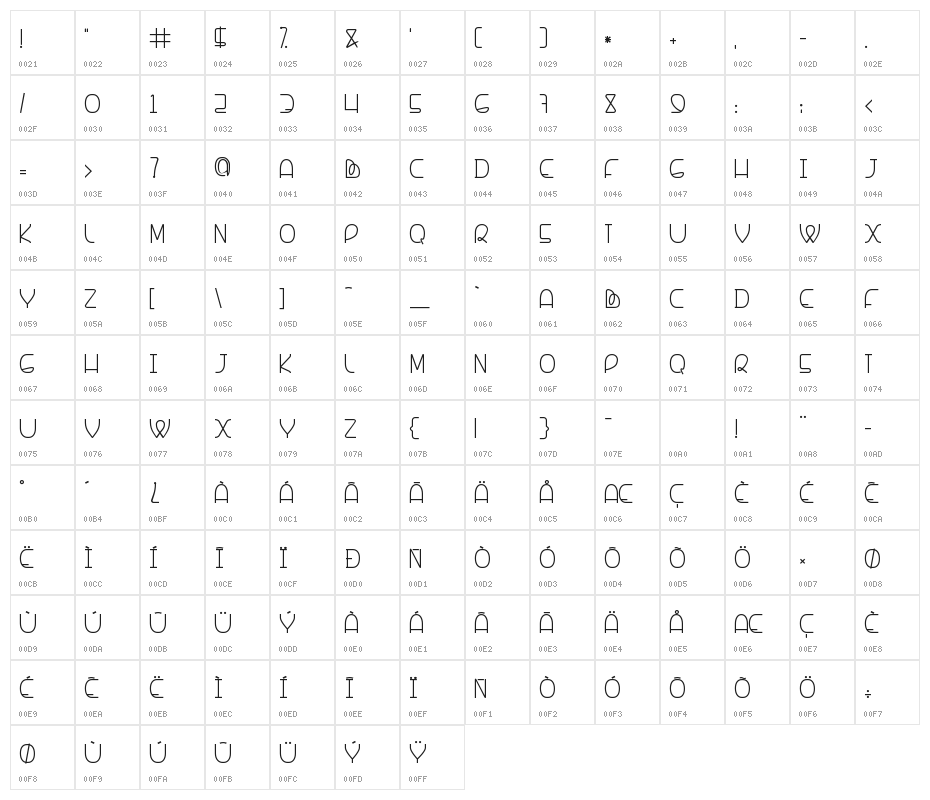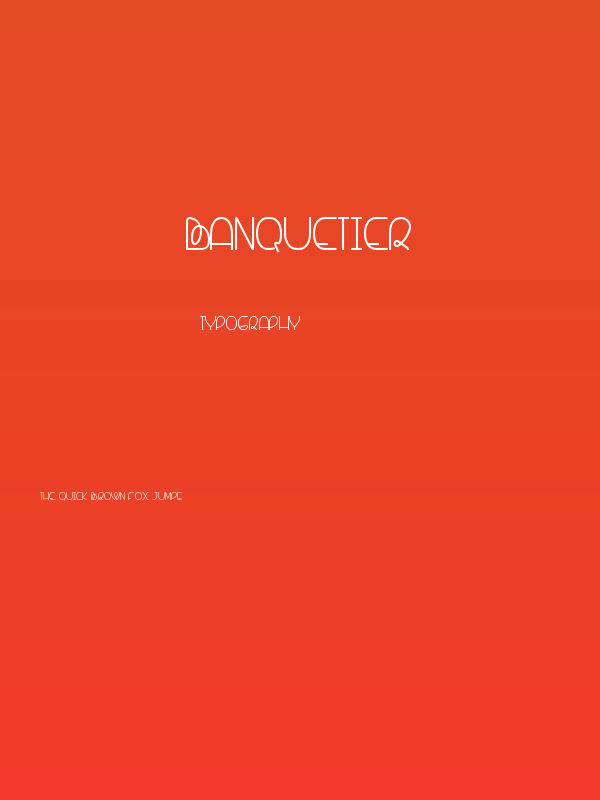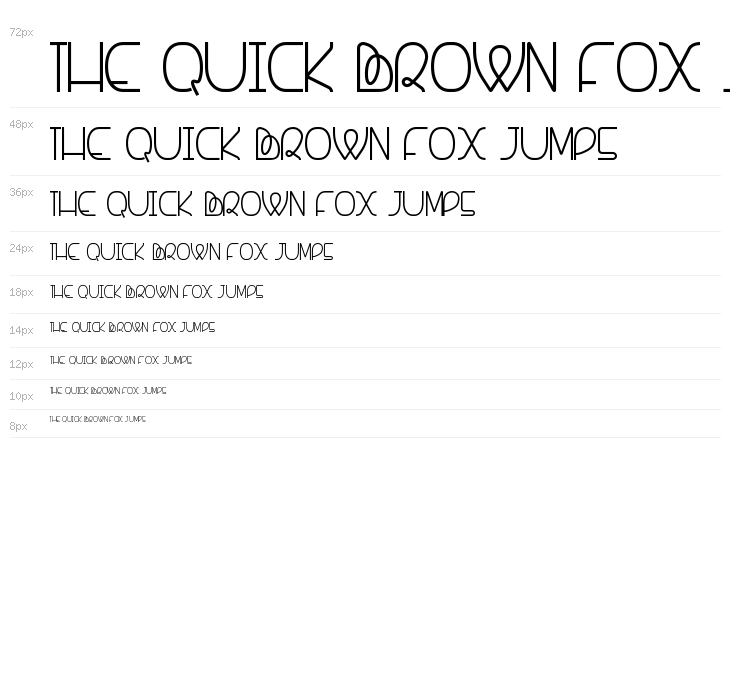
Banquetier Font
Banquetier Description
This font features a unique and modern design with a geometric and futuristic aesthetic. The characters are constructed with clean, continuous lines that form distinct loops and curves, giving it a playful yet sophisticated appearance. The uppercase and lowercase letters maintain a consistent style, with the uppercase letters exhibiting a slightly more pronounced structure. The numerals and special characters follow the same design principles, ensuring a cohesive look across all glyphs. The font's minimalistic approach, combined with its creative use of line intersections and negative space, makes it stand out as a decorative choice.
| Proposed Projects | Ideal for branding, logos, posters, and modern digital interfaces. |